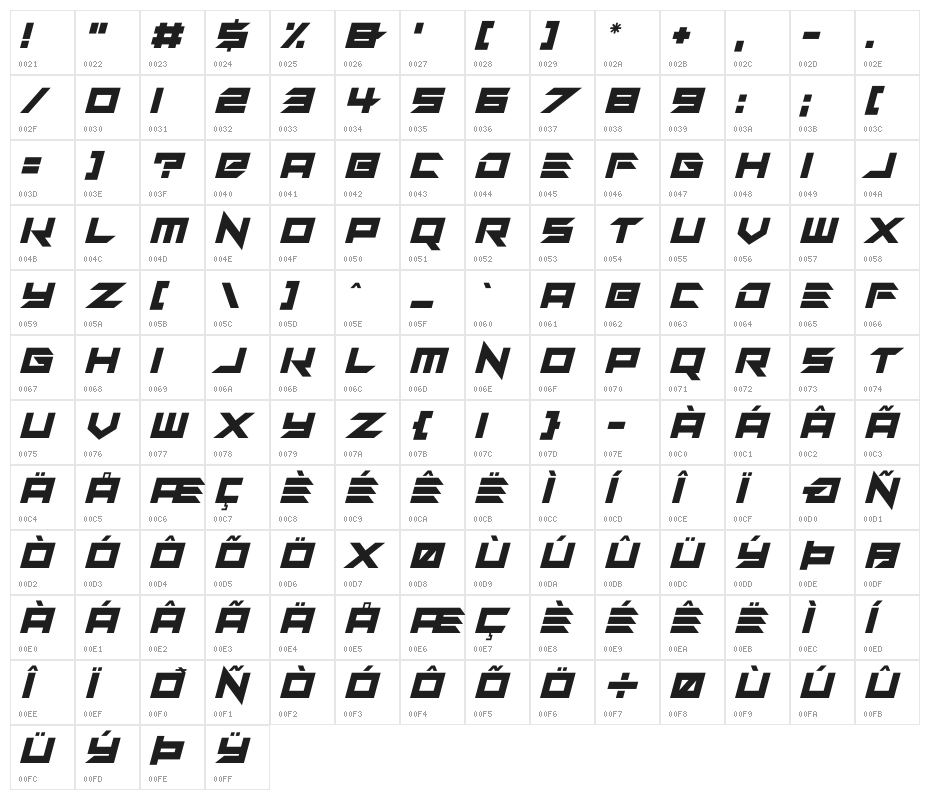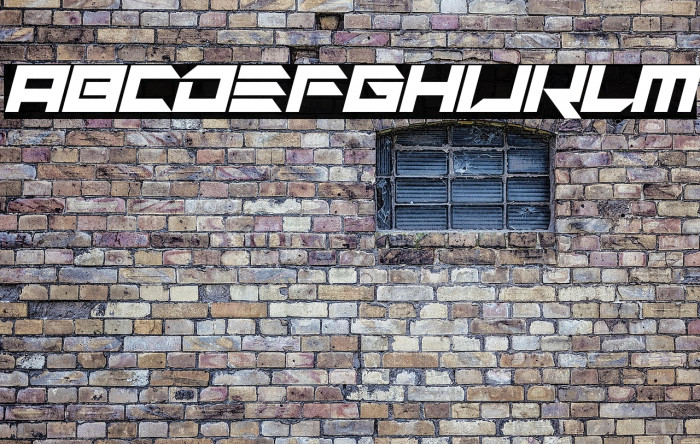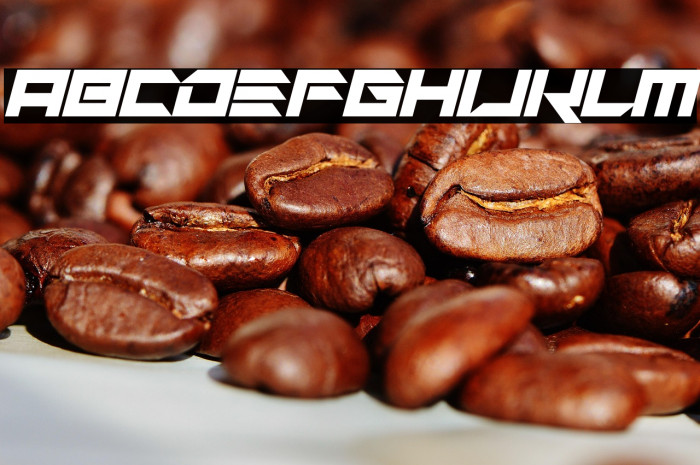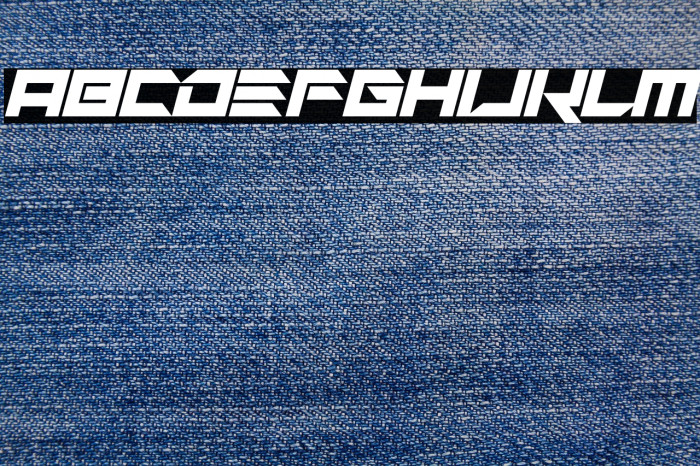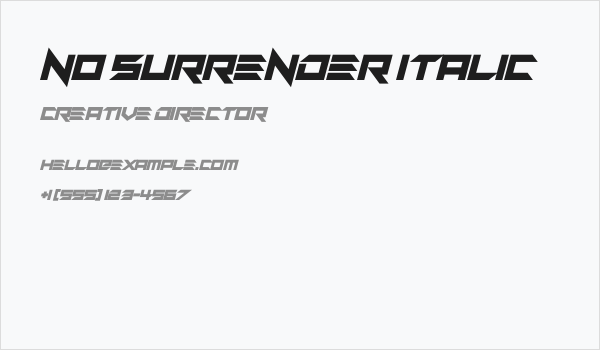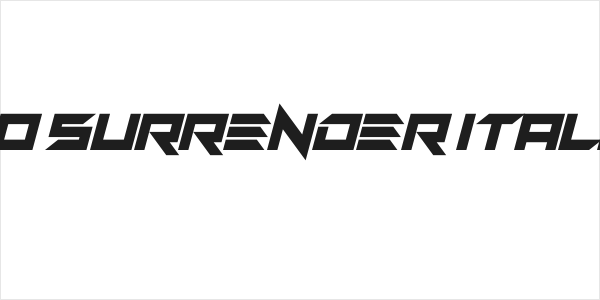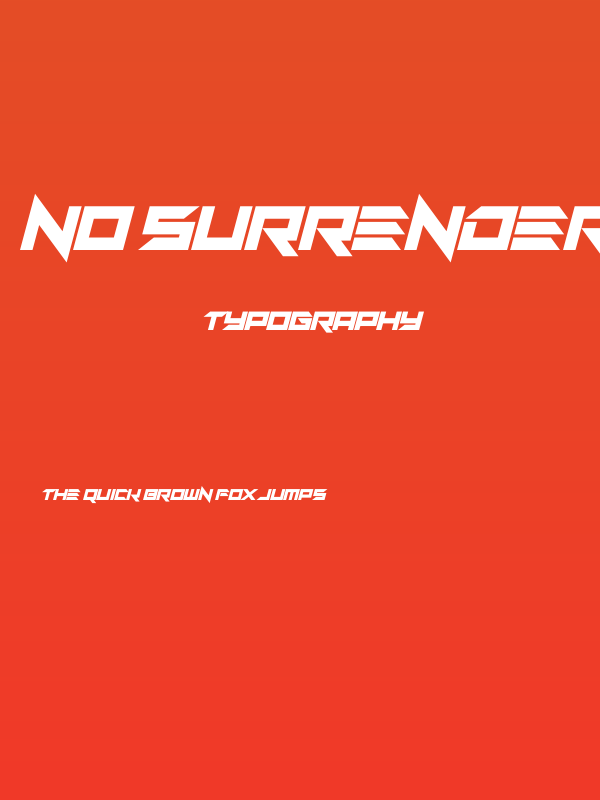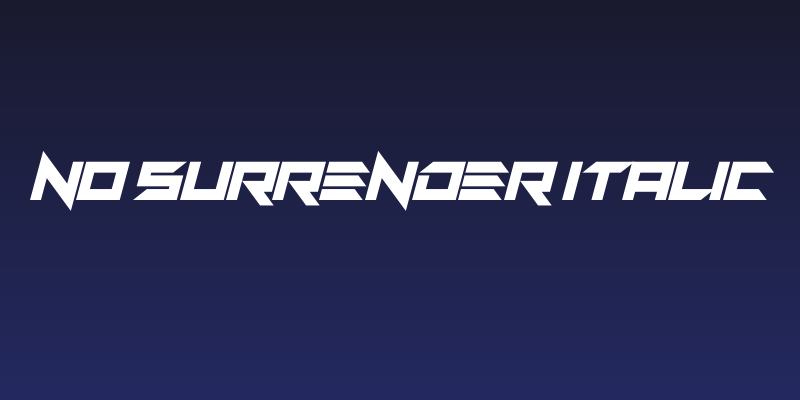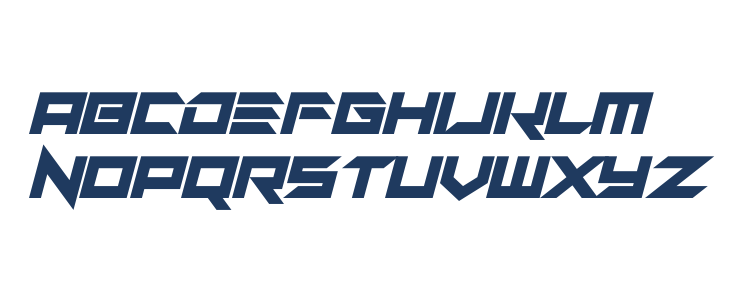
No Surrender Italic Font
No Surrender Italic Description
This font features a bold, angular design with a futuristic and dynamic aesthetic. The characters are sharply cut with a forward-leaning italic style, giving a sense of motion and speed. Each letter is distinct with geometric shapes and sharp edges, creating a striking and aggressive appearance. The numbers and special characters follow the same angular and bold design, ensuring consistency throughout. This font is ideal for projects that require a modern and edgy look, such as technology branding, sports team logos, or video game titles.
| Use Case | Logos, Headlines |
| Proposed Projects | Ideal for technology branding, sports logos, video game titles, and futuristic designs. |